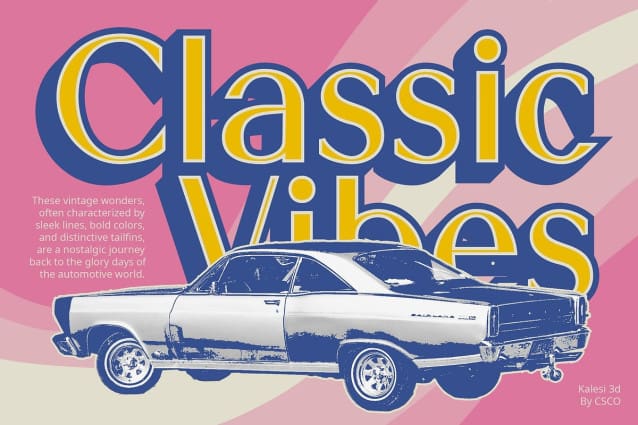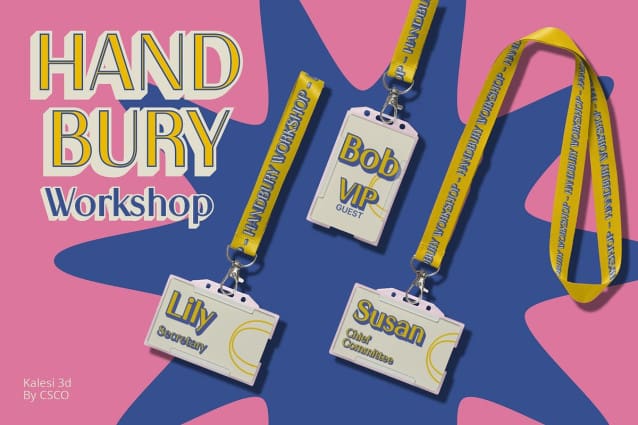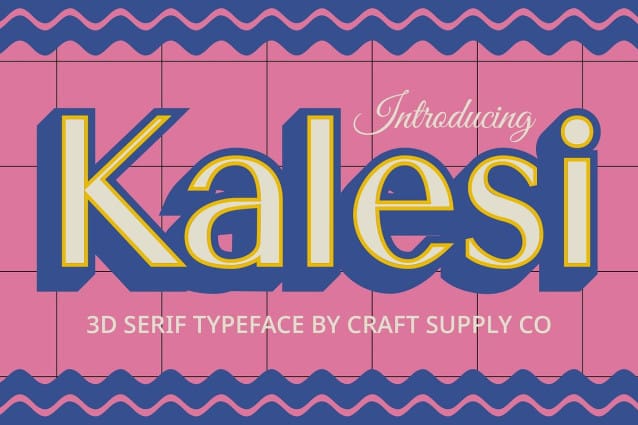
Kalesi 3D Font
Kalesi 3D Font by Craft Supply Co. 25,447 downloads
Kalesi 3D Font
Kalesi 3D Font: Redefining Display Typography. Dynamic Sans Serif Design Kalesi 3D features a sleek sans serif structure elevated with captivating 3D effects. Each character exudes modernity and depth, making it a versatile choice for various display needs.
Innovative 3D Effects With its innovative use of 3D technology, This font brings a new dimension to display typography. The dynamic interplay of light and shadow adds depth and visual interest to each character.
Perfect for Display Purposes Tailored specifically for display purposes, This font excels in grabbing attention and conveying messages effectively. Its bold presence and three-dimensional appearance ensure that your designs stand out.
Versatile Application Beyond its striking appearance, This font offers versatility in application. Whether used in advertising, branding, or digital media, its modern sans serif style with 3D effects adds a touch of sophistication to any project.
Modern Elegance in Display Typography This font redefines display typography with its sleek sans serif design and captivating 3D effects. Suitable for a wide range of display needs, it offers both style and functionality, making it a must-have font for modern design projects. Experience the allure of Kalesi 3D and elevate your display designs to new heights of sophistication.